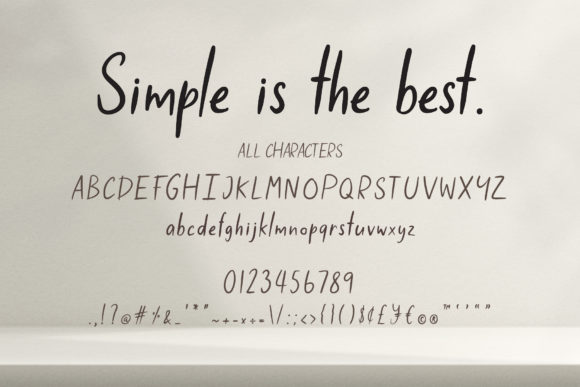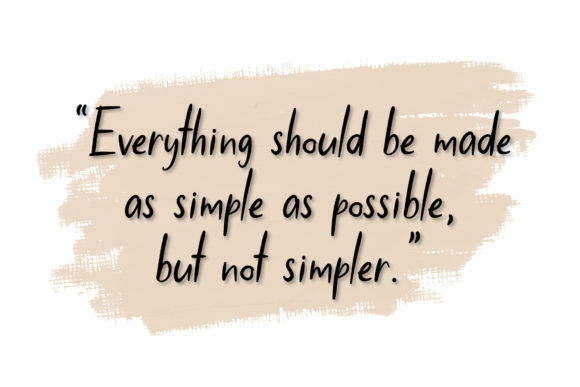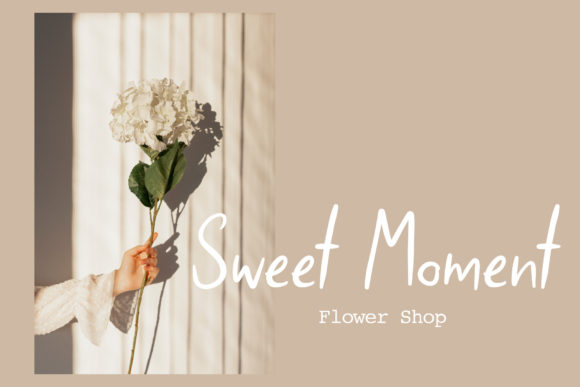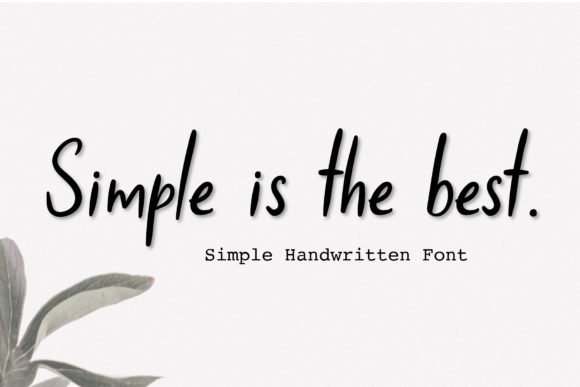
Introduction to Simple is the Best Font
Simple is a cute and simple lettered handwritten font that can be used for all chalkboard quotes or teaching material.
Its authentic look will add a personal and realistic feel to your designs .
Key Features of Simple is the Best Font
Why Choose Simple is the Best Font?